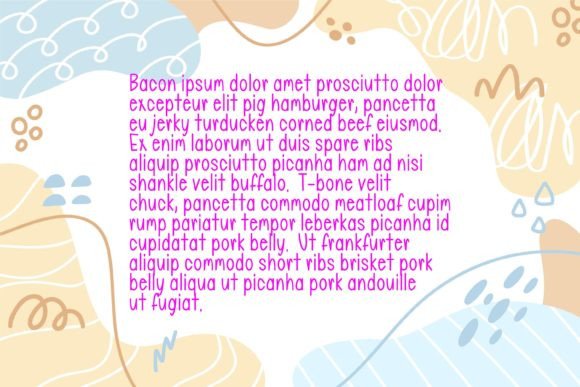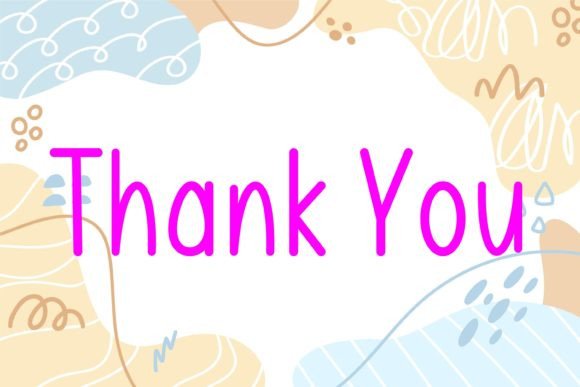
Introduction to Gottschalk Font Font
Fonts play a crucial role in design, and the Gottschalk Font font is a typeface that brings both character and versatility to any project. Whether you’re working on a branding project, a website, or a print design, the Gottschalk Font font offers a unique style that can elevate your work.
Gottschalk is a simple and friendly handwritten font.
Whimsical and a bit quirky, this font will brighten up each of your designs Add it confidently to your projects, and you will love the results.
Key Features of Gottschalk Font Font
Why Choose Gottschalk Font Font?
The Gottschalk Font font is more than just a typeface – it’s a design tool that helps you communicate your message with style and clarity. Its unique character set and versatile design make it suitable for a wide range of applications, from elegant invitations to bold headlines.
With its carefully crafted letterforms and balanced proportions, the Gottschalk Font font ensures readability and visual appeal across all mediums.
What makes Gottschalk Font font special?
The Gottschalk Font font stands out with its unique design, exceptional readability, and versatility across various design applications.